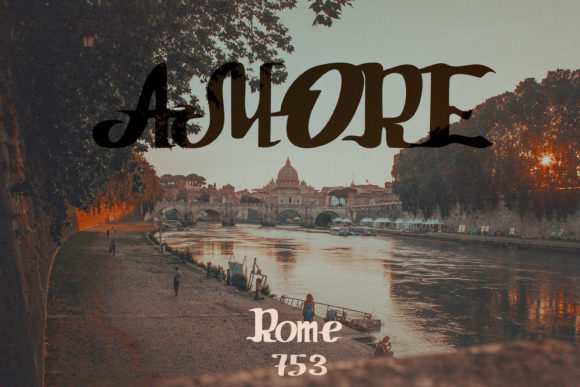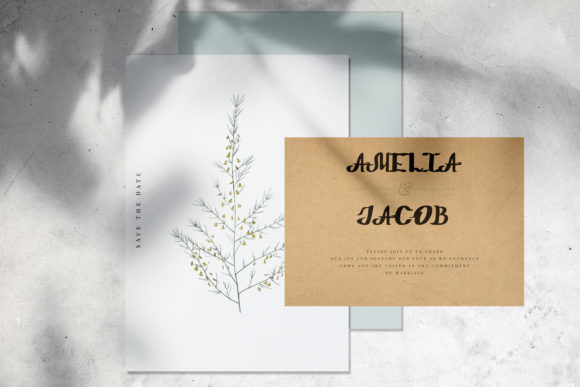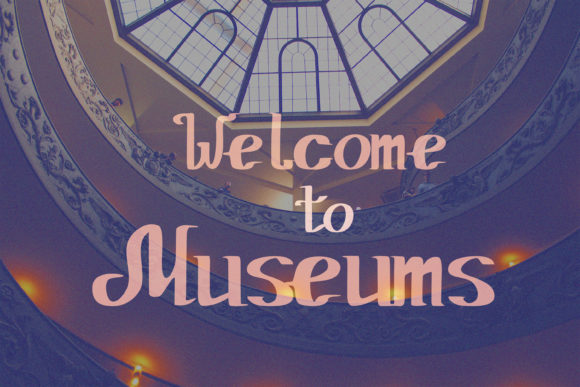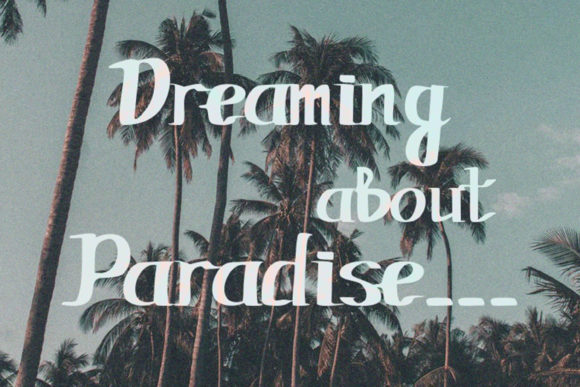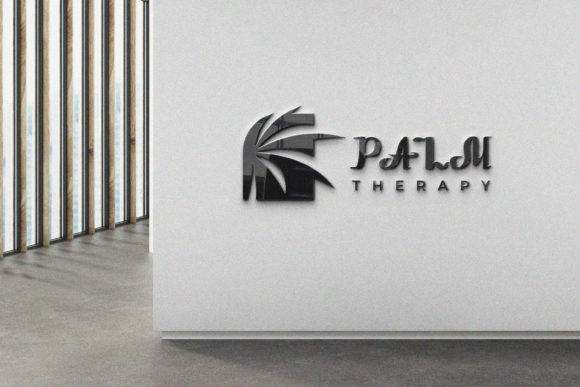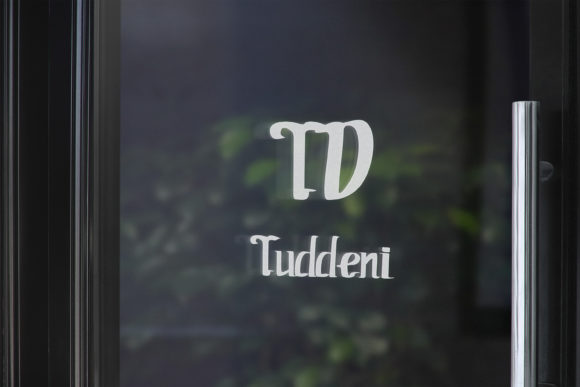
The Quest for the Perfect Font: Discovering Columb
I’ll never forget the time I was working on a project for a client who wanted a font that was both elegant and unique. I had spent hours scouring the internet, trying out different fonts, but nothing seemed quite right. That was until I stumbled upon Columb, an exquisite handwritten font that captured the essence of what I was looking for. In this article, I’ll share my experience with Columb, its features, and how to make the most of it in your designs.
A First Impression: What I Love About Columb
Columb is described as having an elegant touch, and I couldn’t agree more. Here are some things that I love about this font:
- ✨ Elegant and refined: Columb has a sophisticated feel to it, making it perfect for projects that require a touch of luxury.
- ✅ Unique and distinctive: This font has a timeless style that sets it apart from more common fonts.
- 💫 Versatile: Columb can be used for a wide range of projects, from wedding invitations to branding and advertising.
An Honest Review: The Not-So-Perfect Font
While Columb is an amazing font, it’s not without its quirks. Here are a few things to keep in mind:
- 🤔 Legibility at small sizes: While Columb is beautiful, it can be a bit tricky to read at very small sizes. Make sure to test it out before committing to a specific size.
- ⚠️ Limited use in body text: Due to its elegant and refined nature, Columb might not be the best choice for long blocks of body text. It’s better suited for headings, titles, and short paragraphs.
One of the standout features of Columb is its support for OpenType features and glyphs. These features allow you to add more depth and personality to your text, making it more engaging and visually appealing. Here are some tips for using OpenType features and glyphs in Columb:
- Use stylistic alternates to create a more unique and distinctive look.
- Experiment with different glyphs to add more visual interest to your text.
- Take advantage of ligatures and other typographic features to create a more polished look.
The Story Behind Columb
Columb was designed with the goal of creating a font that was both elegant and unique. The designer, who wishes to remain anonymous, was inspired by the beauty of handwritten script and the sophistication of traditional typography. The result is a font that’s both timeless and modern, perfect for a wide range of design projects.
Here are some frequently asked questions about Columb:
- Q: What type of projects is Columb best suited for?
- A: Columb is perfect for projects that require an elegant and refined touch, such as wedding invitations, branding, and advertising.
- Q: Can I use Columb for body text?
- A: While Columb is beautiful, it’s not ideal for long blocks of body text. It’s better suited for headings, titles, and short paragraphs.
- Q: Does Columb support OpenType features and glyphs?
- A: Yes, Columb supports OpenType features and glyphs, allowing you to add more depth and personality to your text.